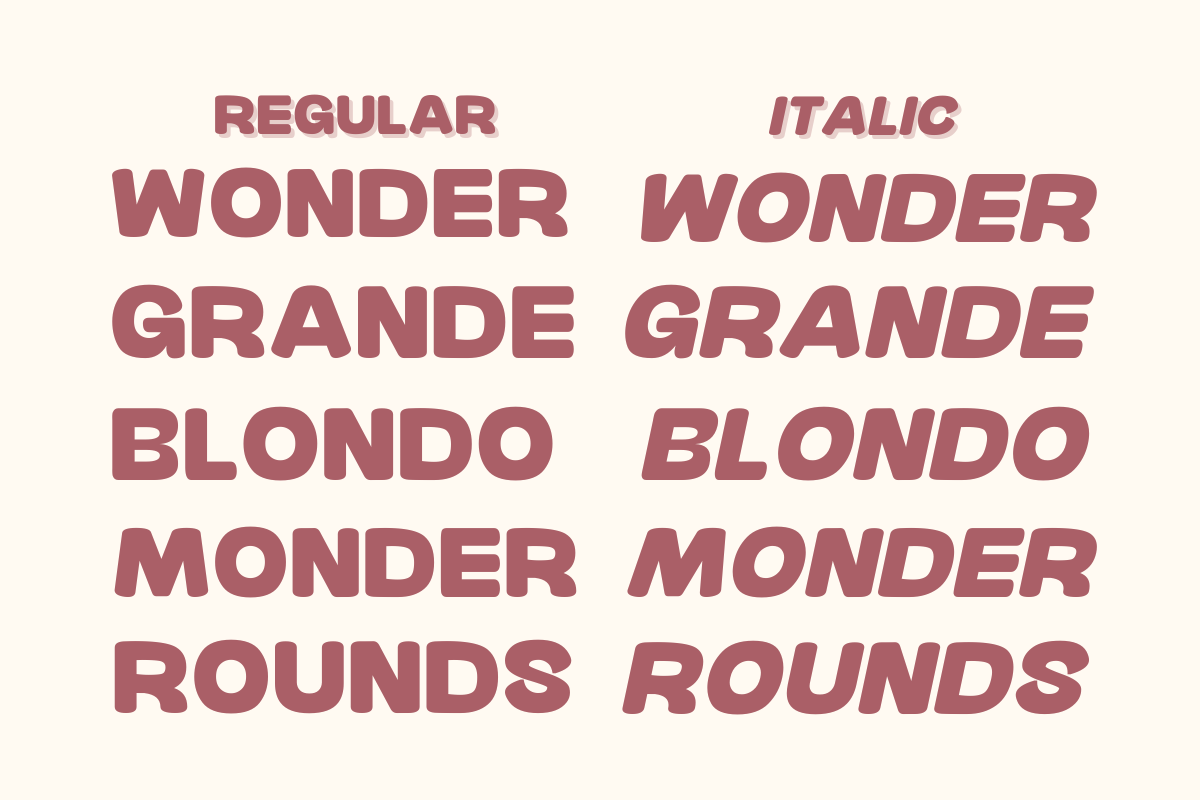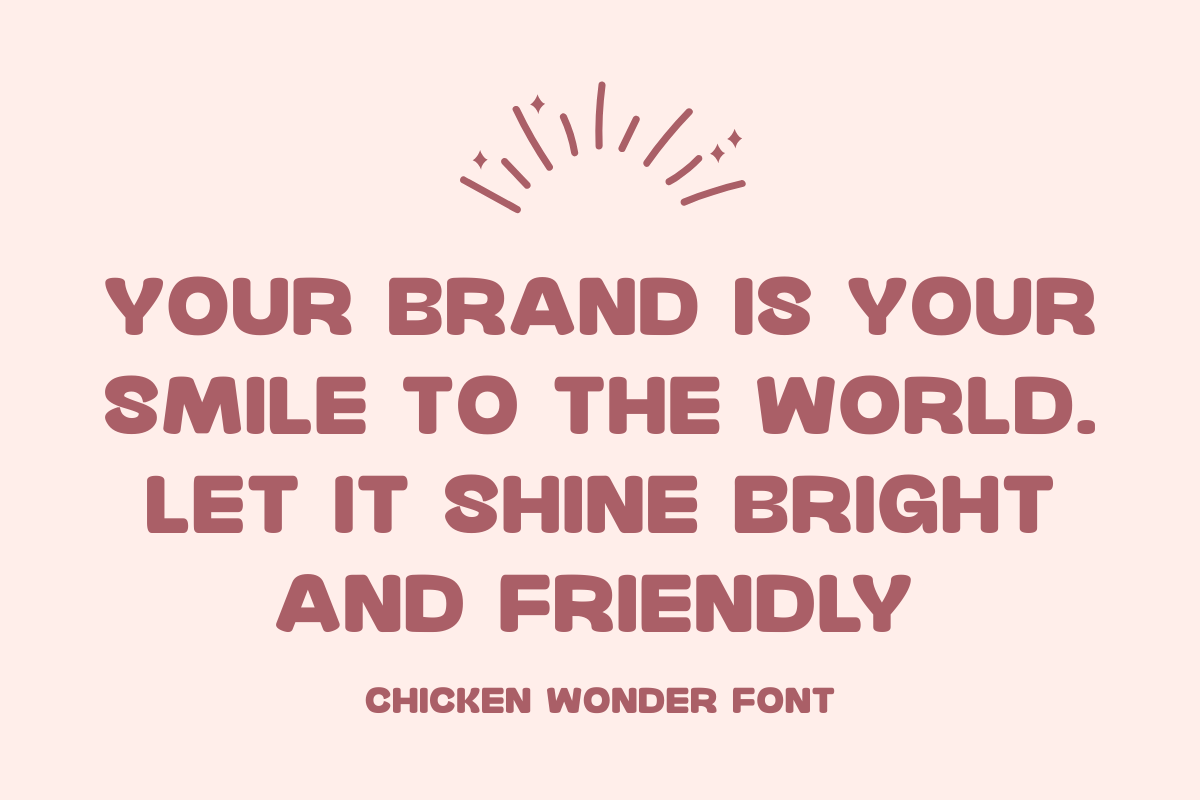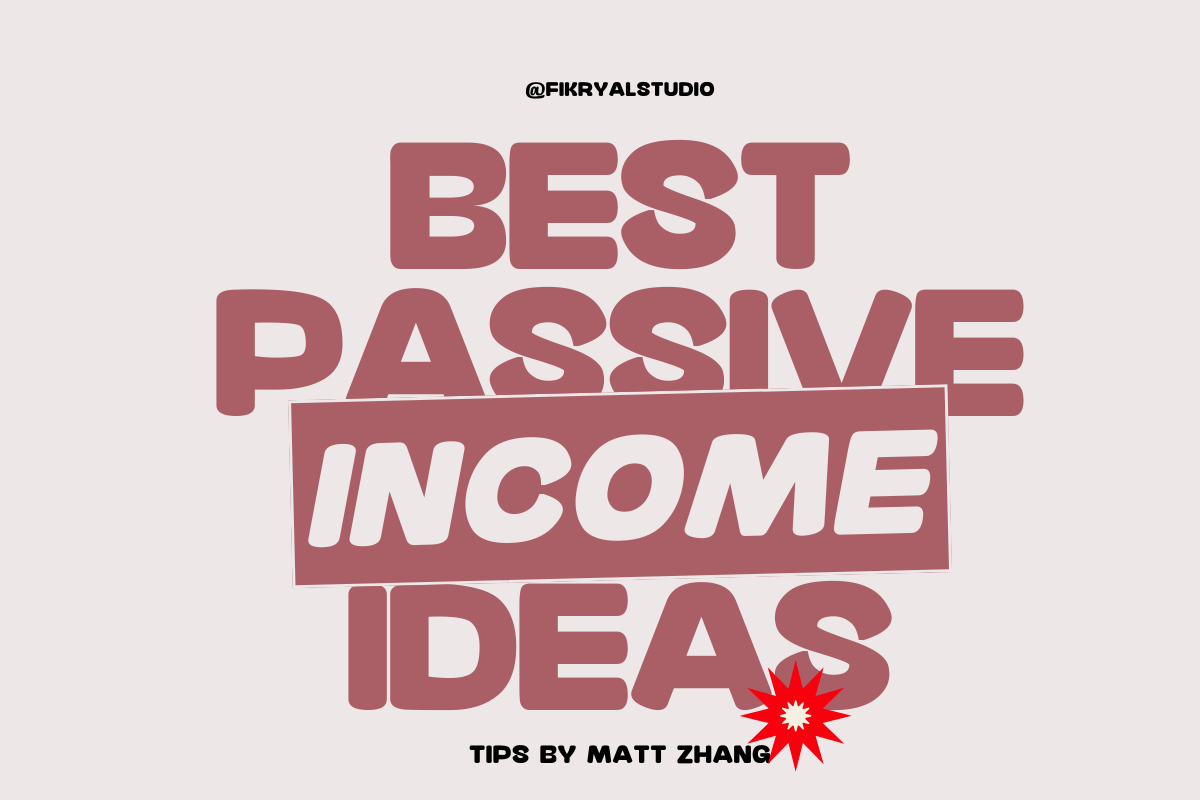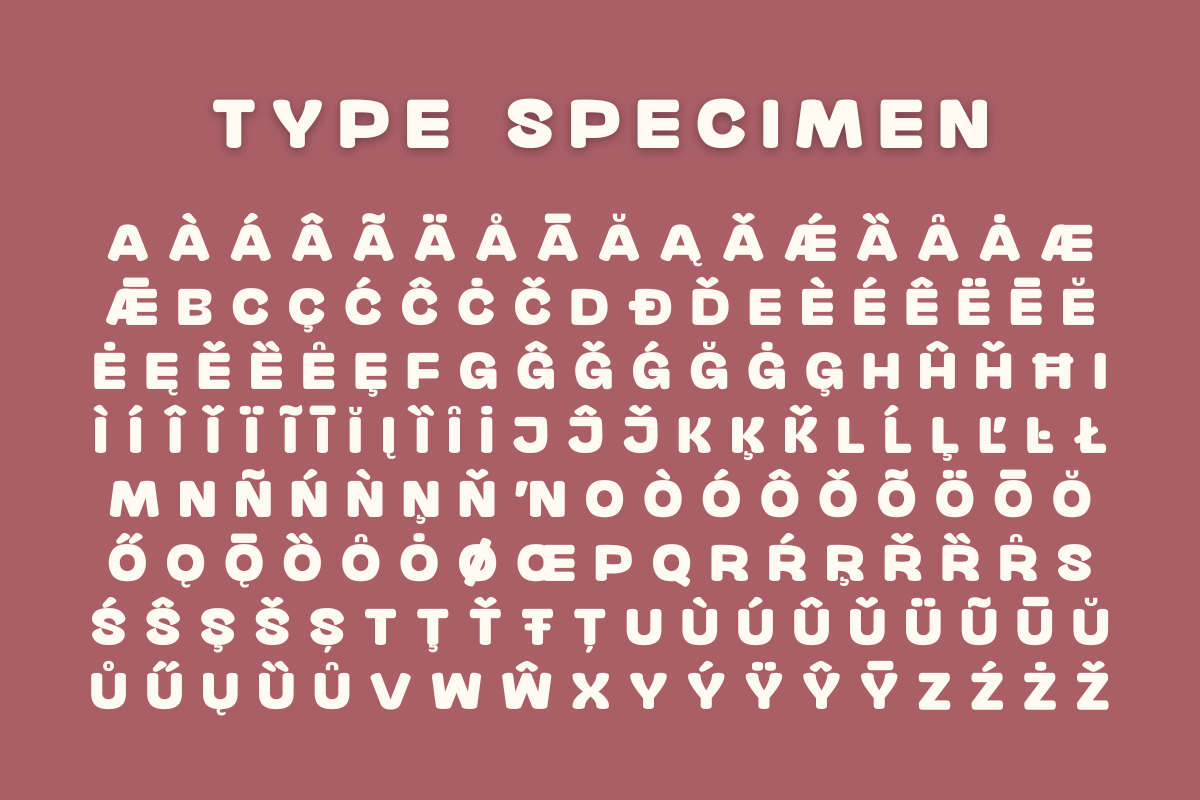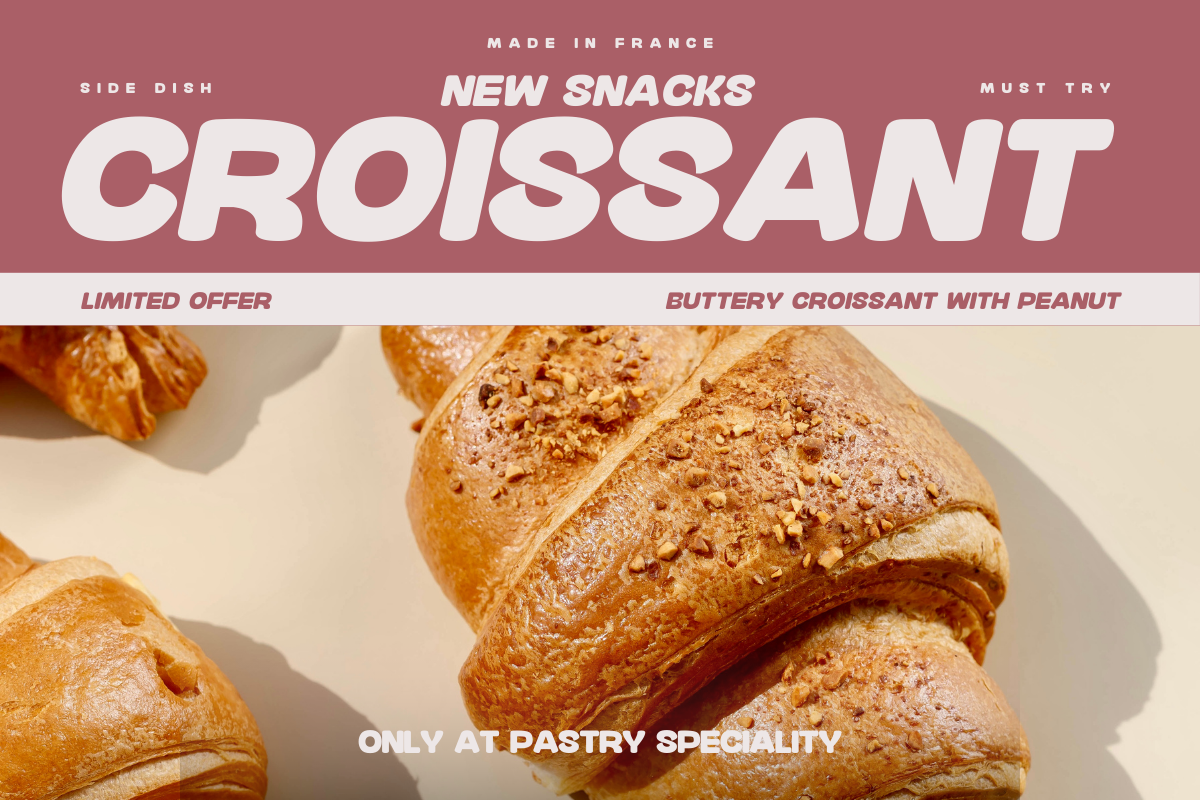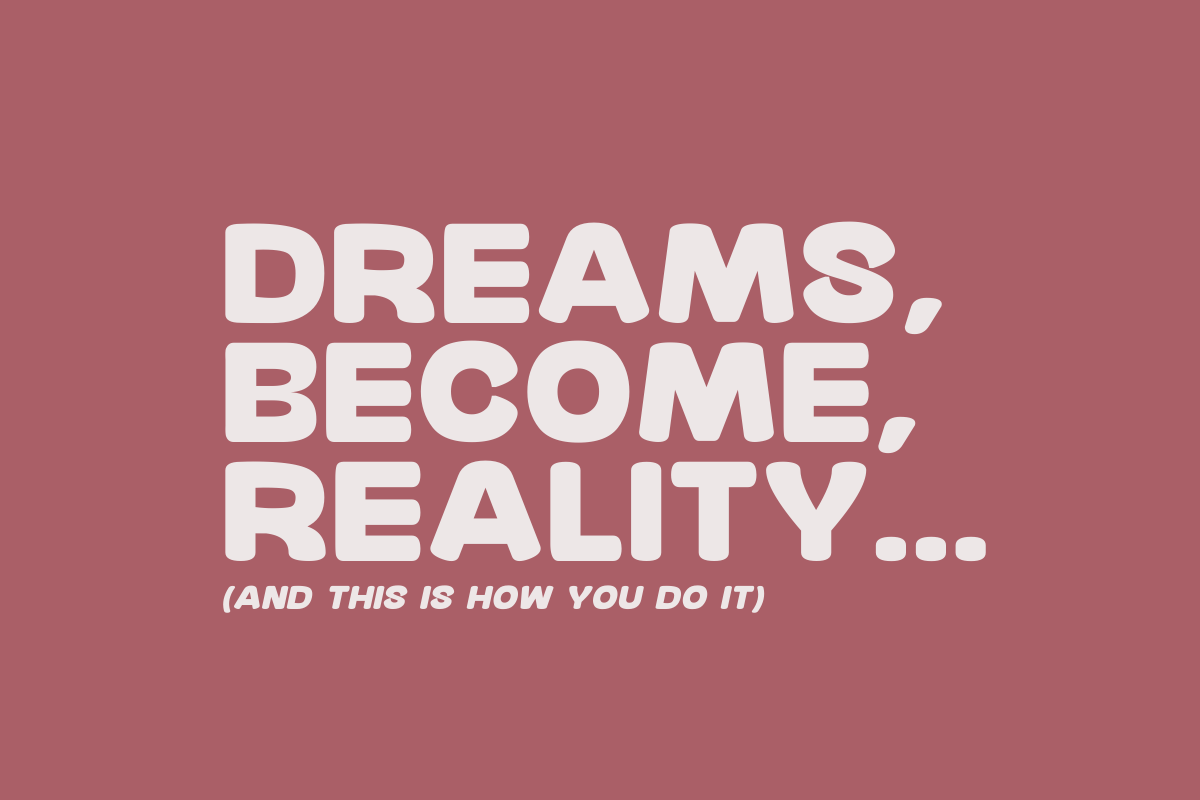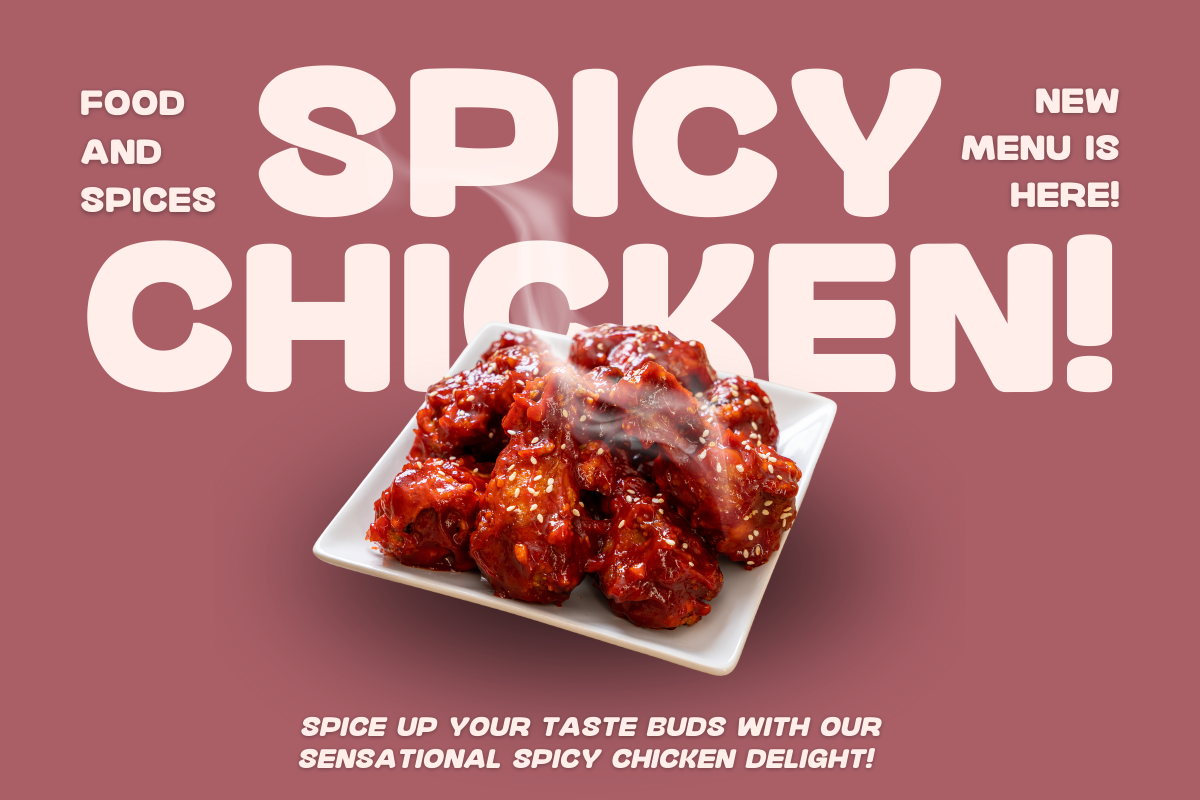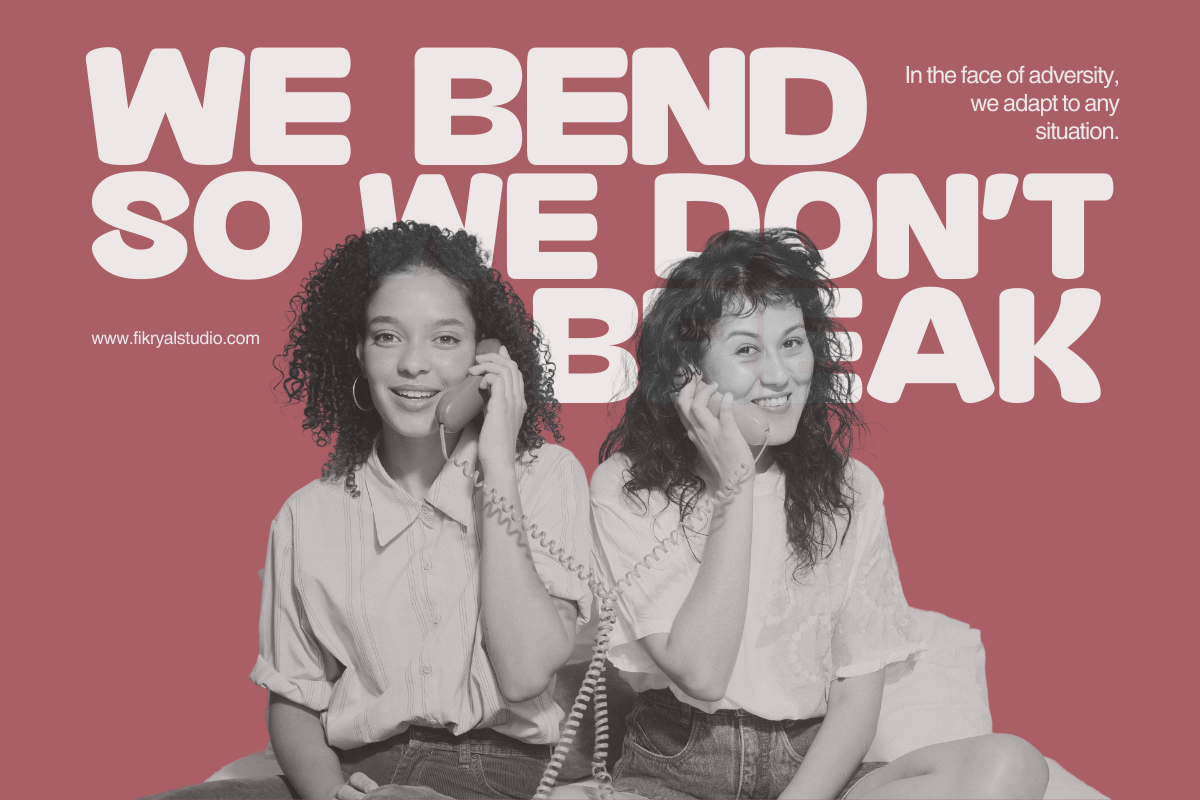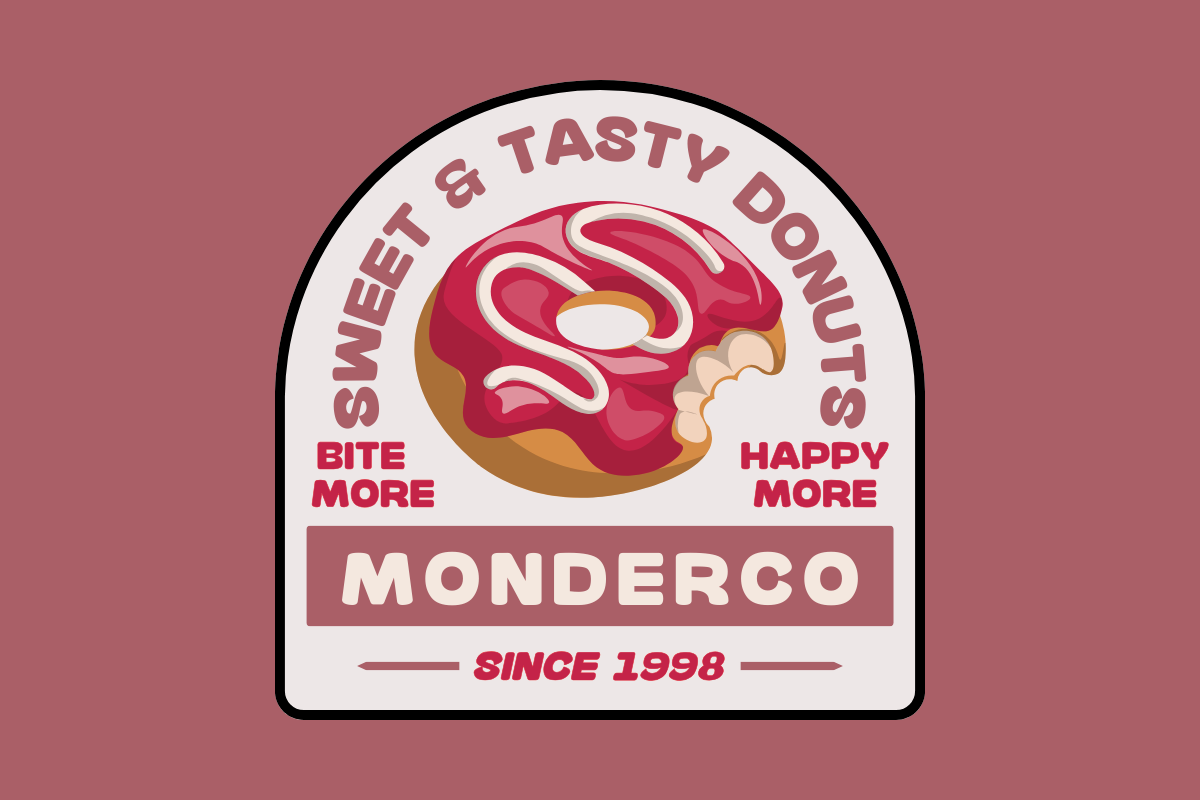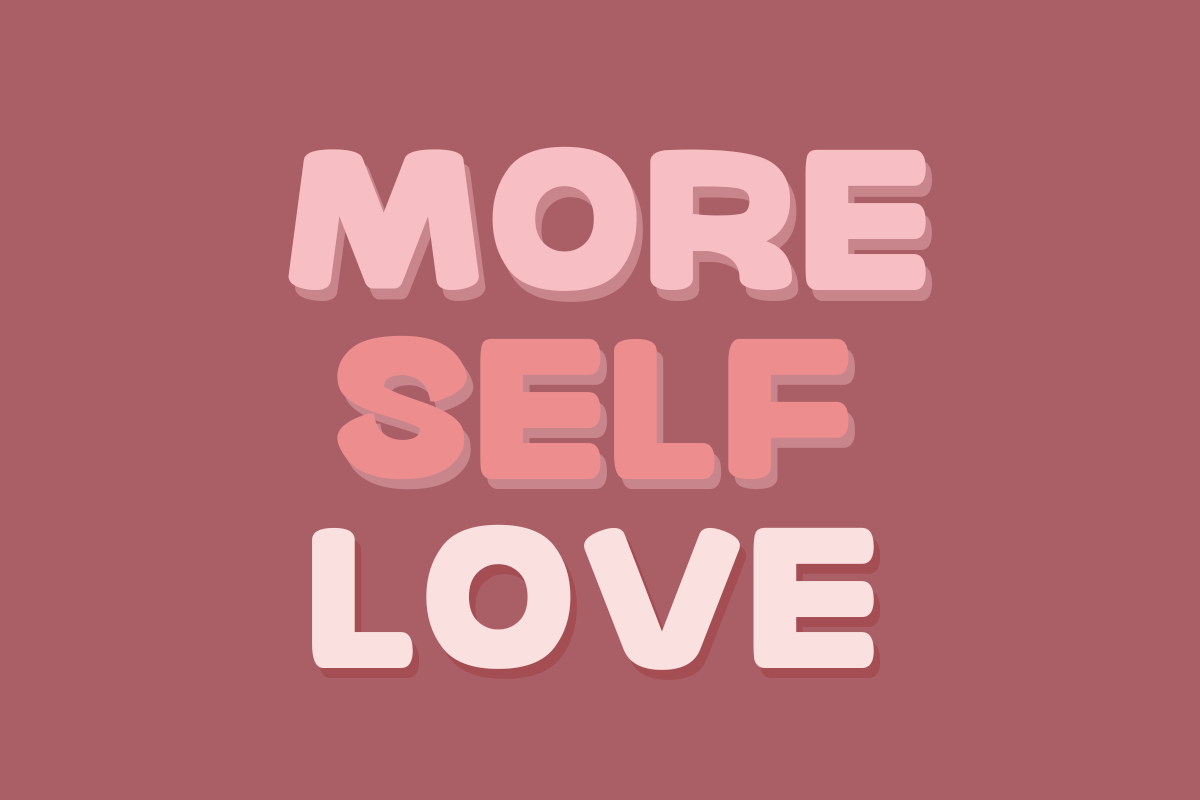
Chicken Wonder – Soft Sans Serif
Chicken Wonder is a rounded sans serif font that exudes a friendly, approachable charm with a subtle retro vibe. Its soft, rounded edges and all caps characters make it a versatile choice for designs that aim to balance warmth and professionalism.
This font comes in two styles: Regular and Italic, offering flexibility for various design needs.
Whether you’re working on branding, packaging, posters, or retro-inspired projects, Chicken Wonder delivers a clean yet inviting aesthetic that draws attention while maintaining a timeless appeal.